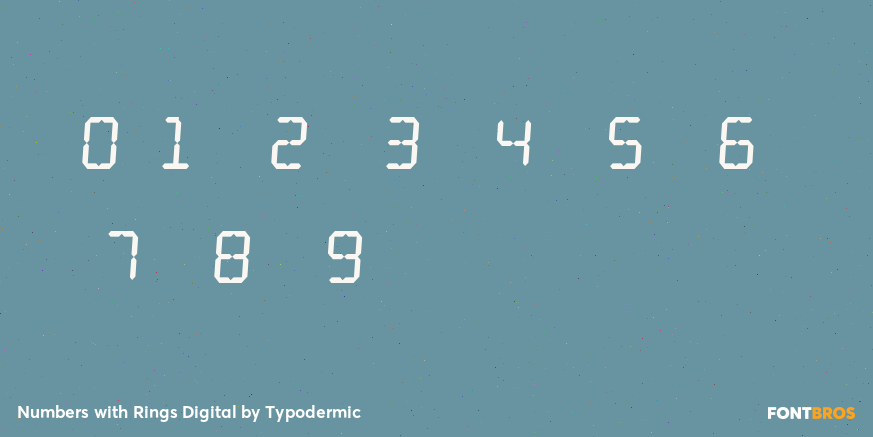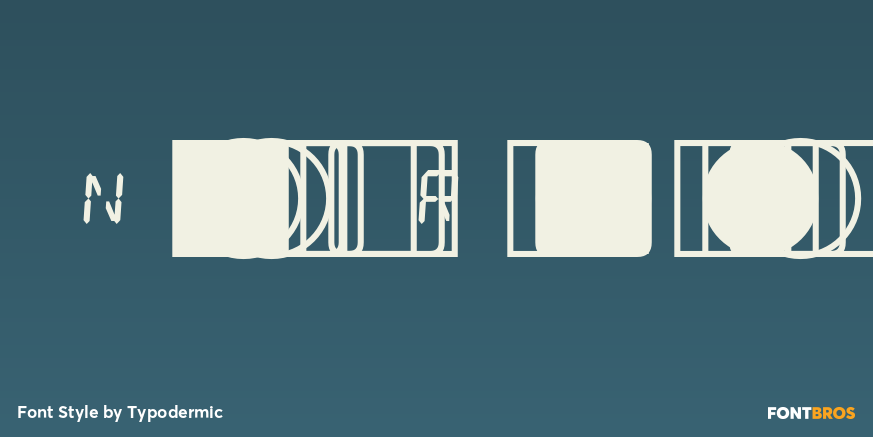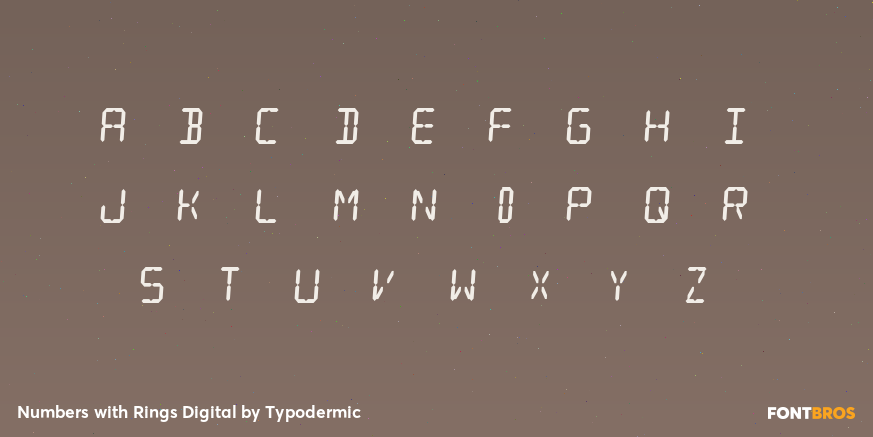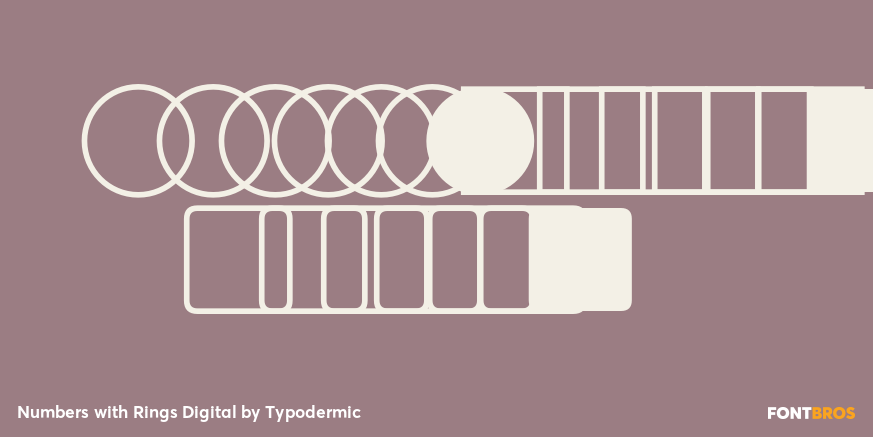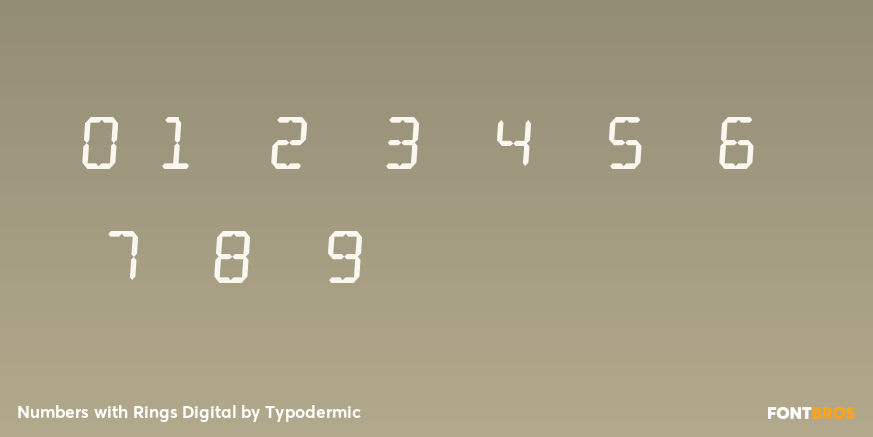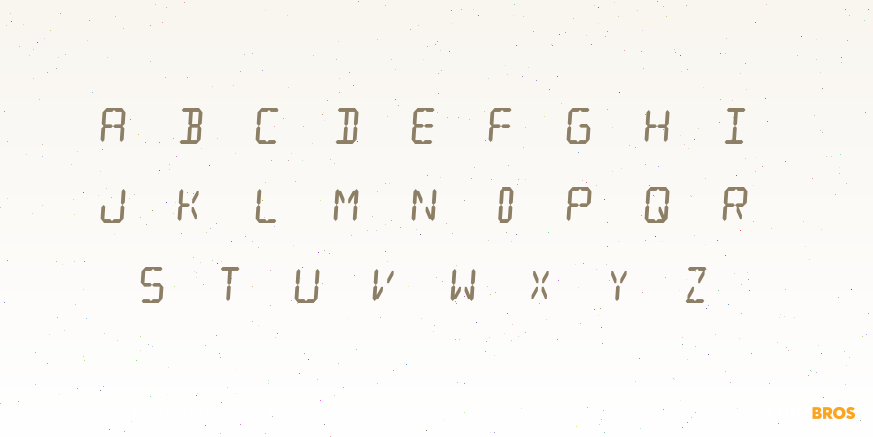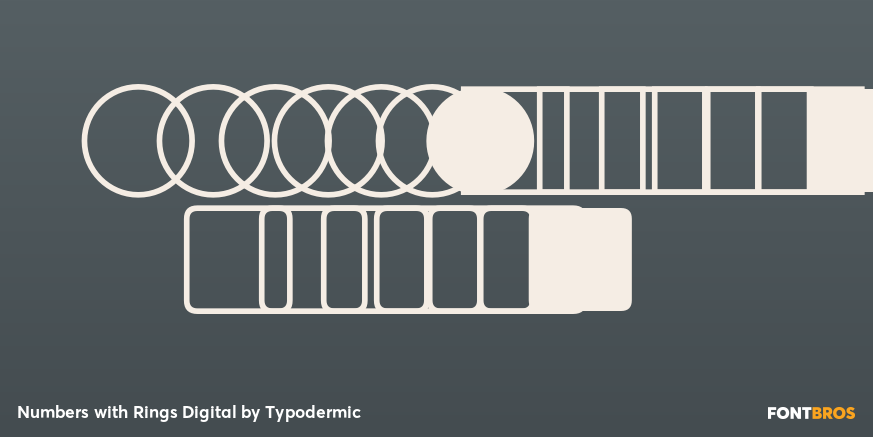
Numbers with Rings Digital
Buy NowNumbers with Rings Digital combines the family’s automated enclosure system with angular, segmented-display letterforms. Numbers, capital letters, question marks, and short alphanumeric codes take on the look of an electronic readout while remaining editable type. The system accommodates one to six characters and includes alternate enclosure shapes plus a solid background component for layered color treatments.
Use Digital for control-panel labels, equipment identifiers, simulation interfaces, digital-twin diagrams, retro-technology graphics, and screen-based callouts that should feel electronic. Its narrow character forms keep longer identifiers compact inside their enclosures, while the display construction clearly separates it from the Sans and Serif styles.